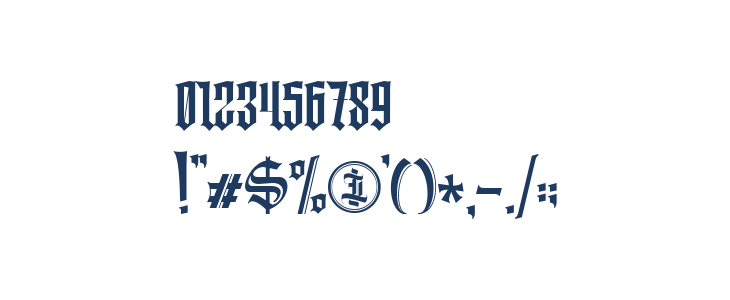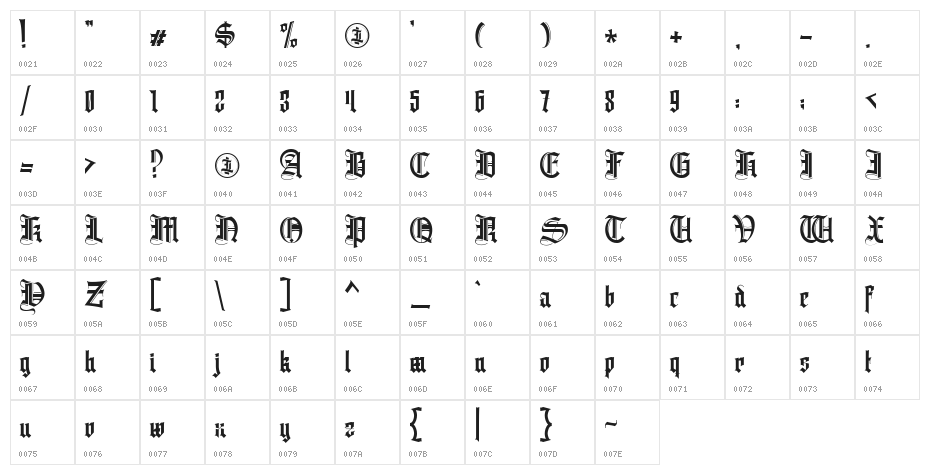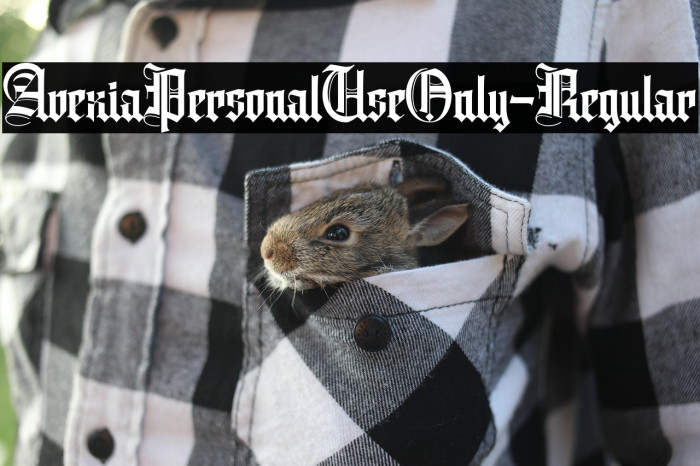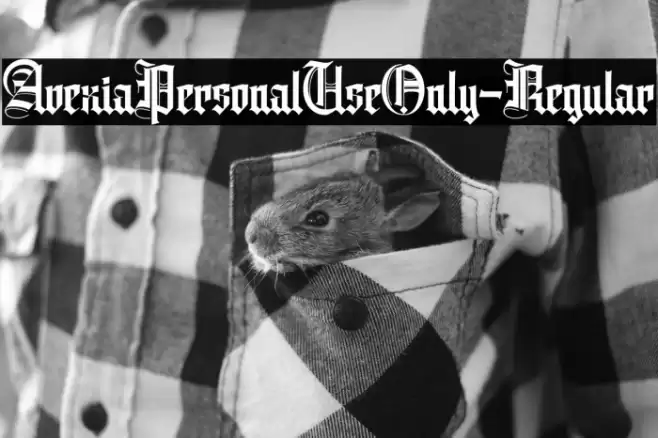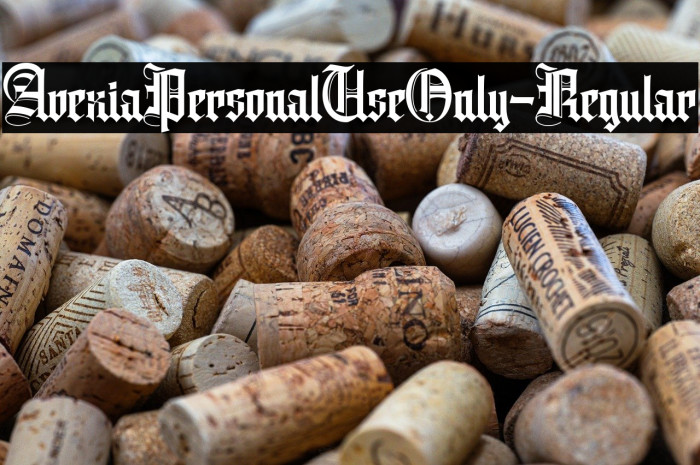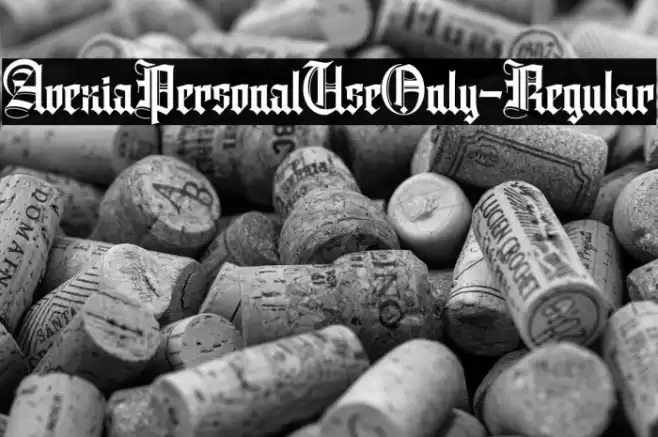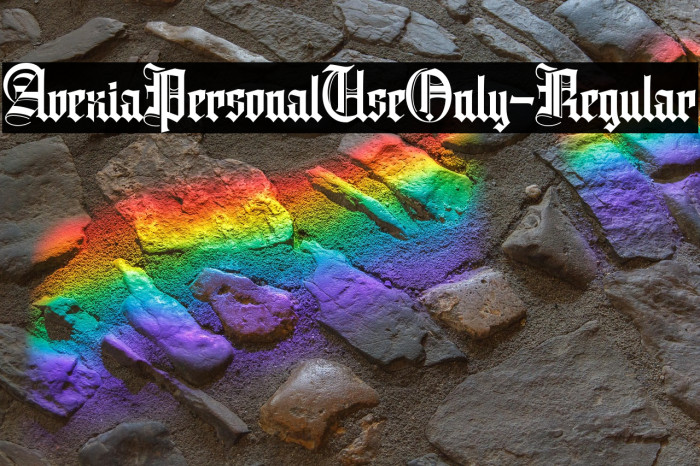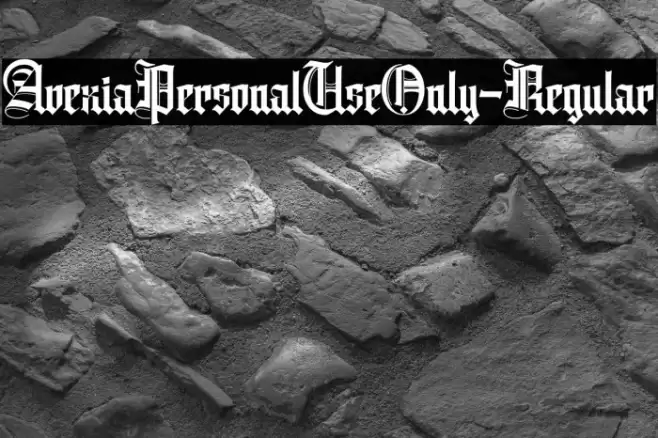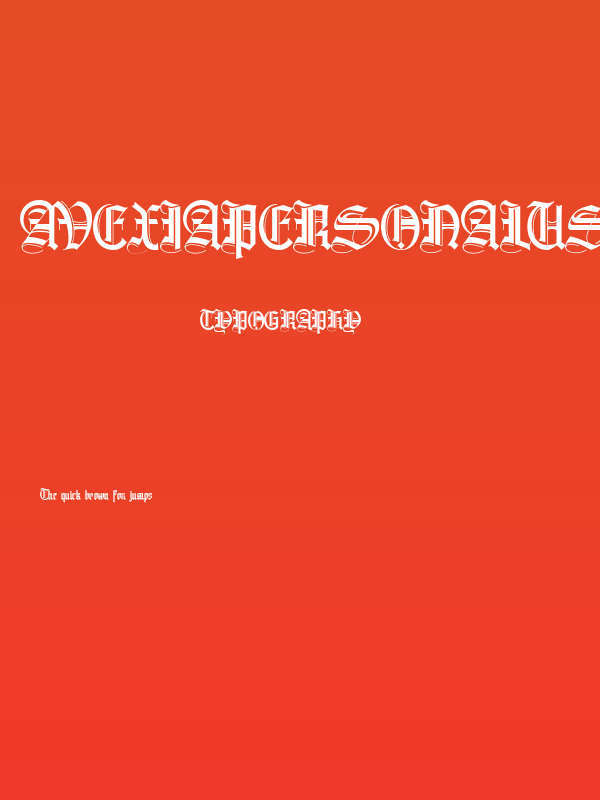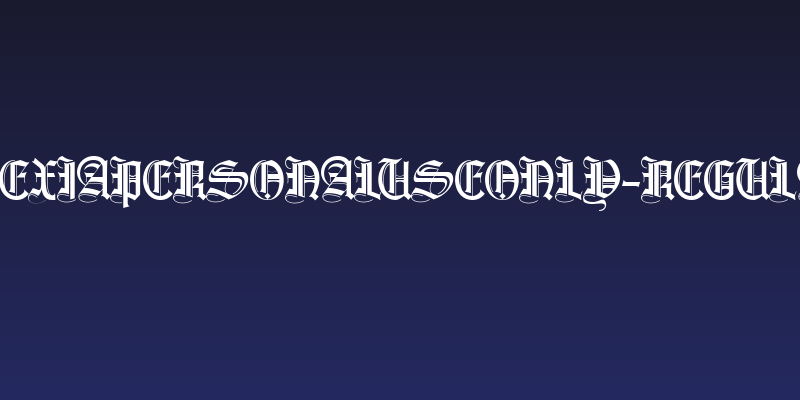
AvexiaPersonalUseOnly-Regular Font
AvexiaPersonalUseOnly-Regular Description
This font exhibits a bold and intricate blackletter style, characterized by its dramatic and ornate letterforms. The uppercase letters feature sharp, angular lines with decorative flourishes, giving them a gothic and medieval appearance. The lowercase letters maintain the same stylistic elements, with a consistent thickness throughout the strokes. The numerals are equally bold and follow the same decorative pattern, ensuring uniformity across all characters. Special characters are designed with similar attention to detail, enhancing the overall aesthetic. This font is ideal for projects that require a historical or traditional touch, such as invitations, certificates, or branding for vintage-themed products.